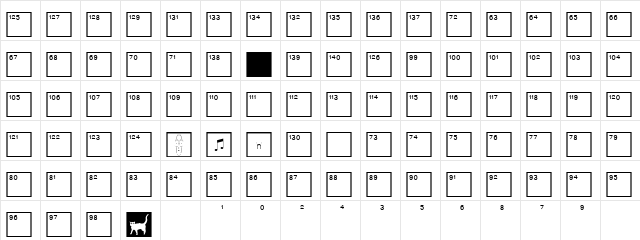
CrosswordHighNumbers Regular
Design Context for CrosswordHighNumbers Typeface
CrosswordHighNumbers is a composed and adaptable typeface that performs quietly and consistently across a wide range of design contexts.